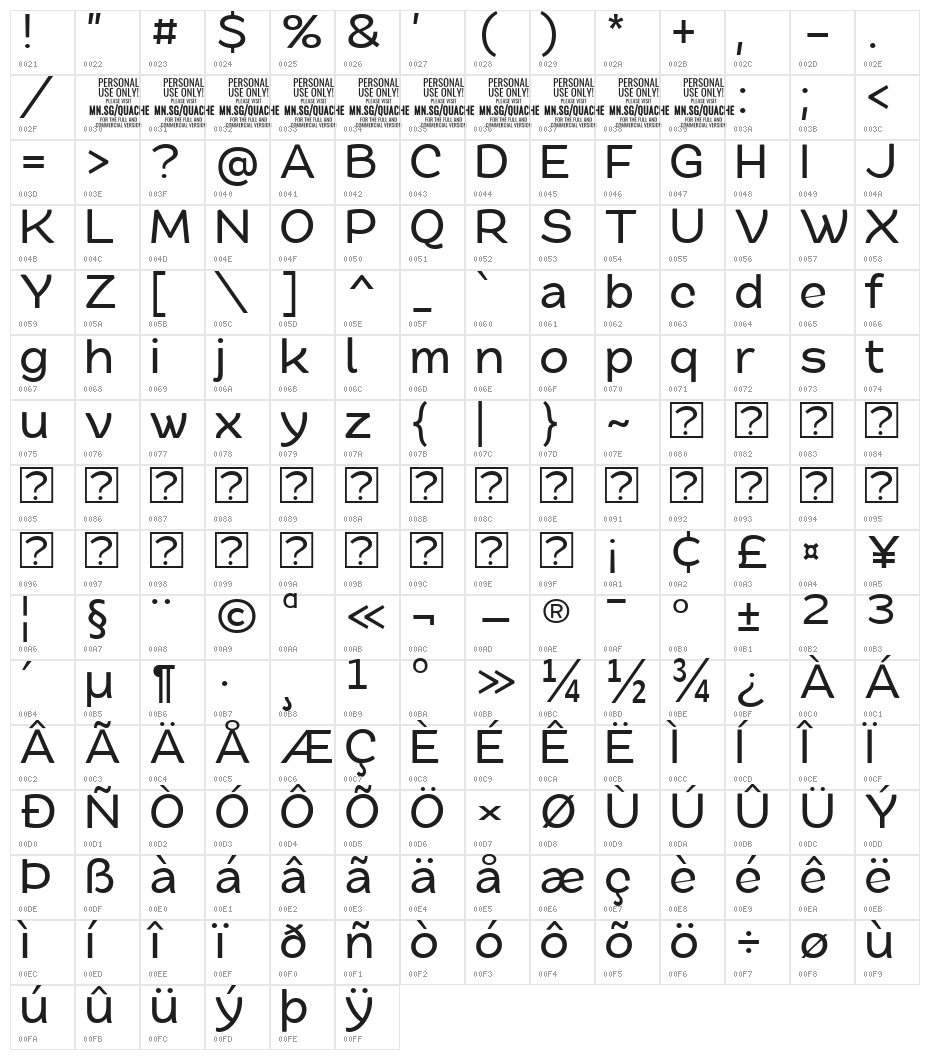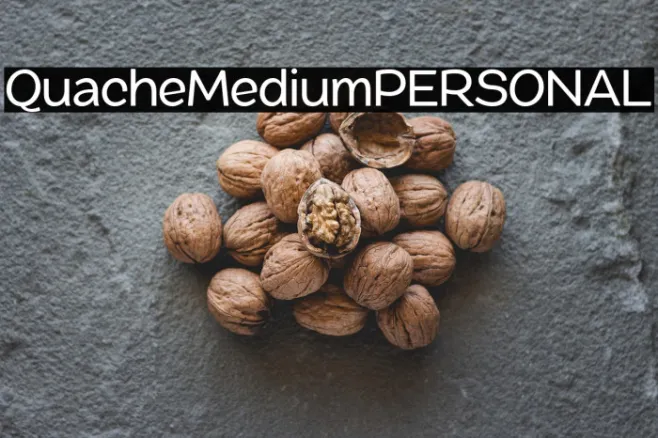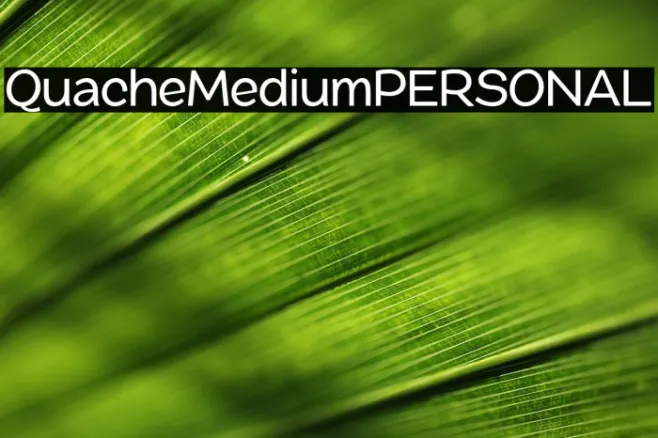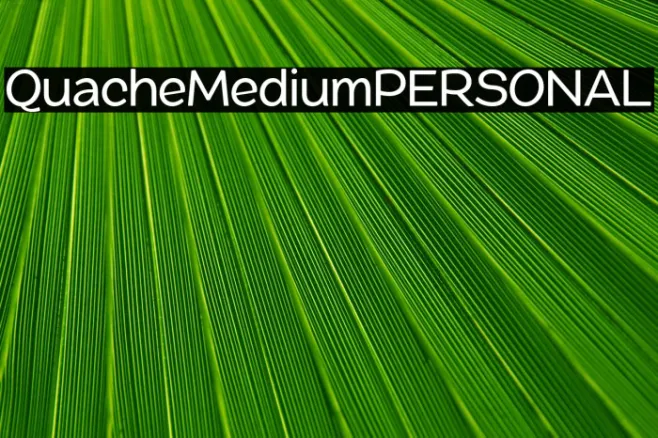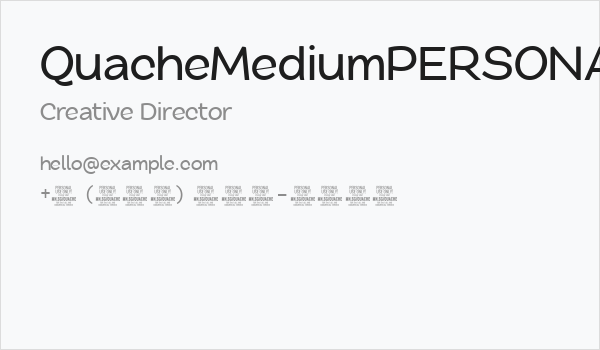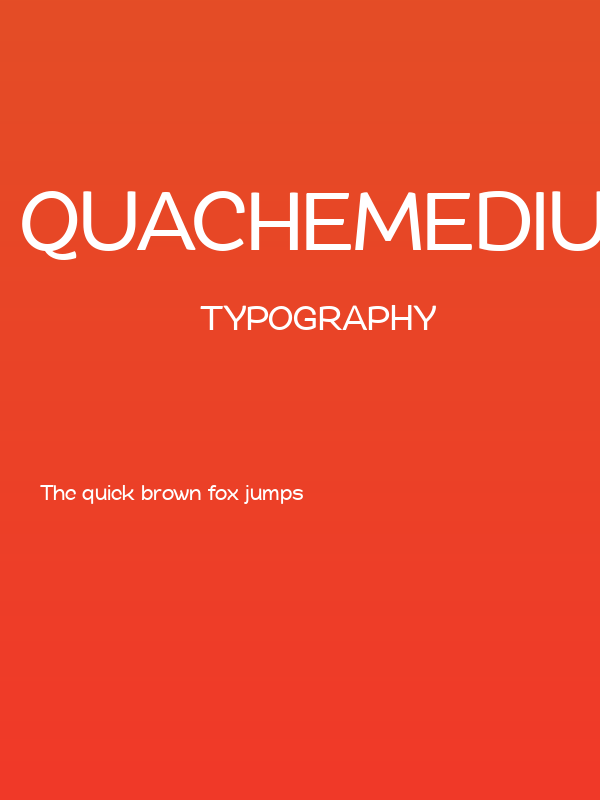
QuacheMediumPERSONAL Font
QuacheMediumPERSONAL Description
This font presents a clean and modern sans-serif style with a geometric influence. The characters are uniform in width, providing a balanced and harmonious appearance. The uppercase letters are bold and assertive, while the lowercase letters maintain a consistent and smooth flow. The numerals and special characters are designed to match the overall aesthetic, ensuring readability and versatility. The font's simplicity and clarity make it suitable for a wide range of applications, from digital interfaces to print media.
| Proposed Projects | Ideal for branding, web design, advertising, and editorial projects that require a modern and professional look. |